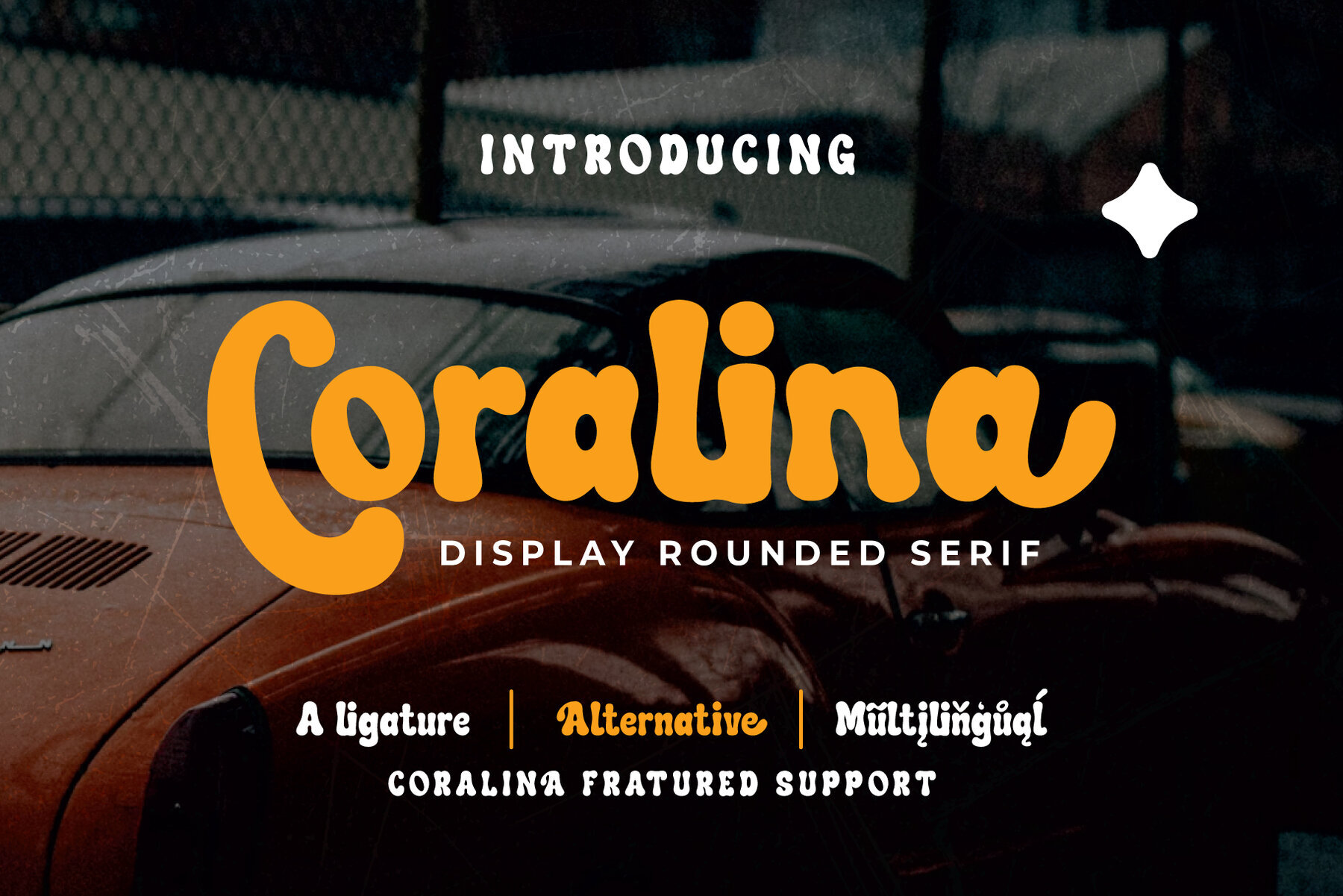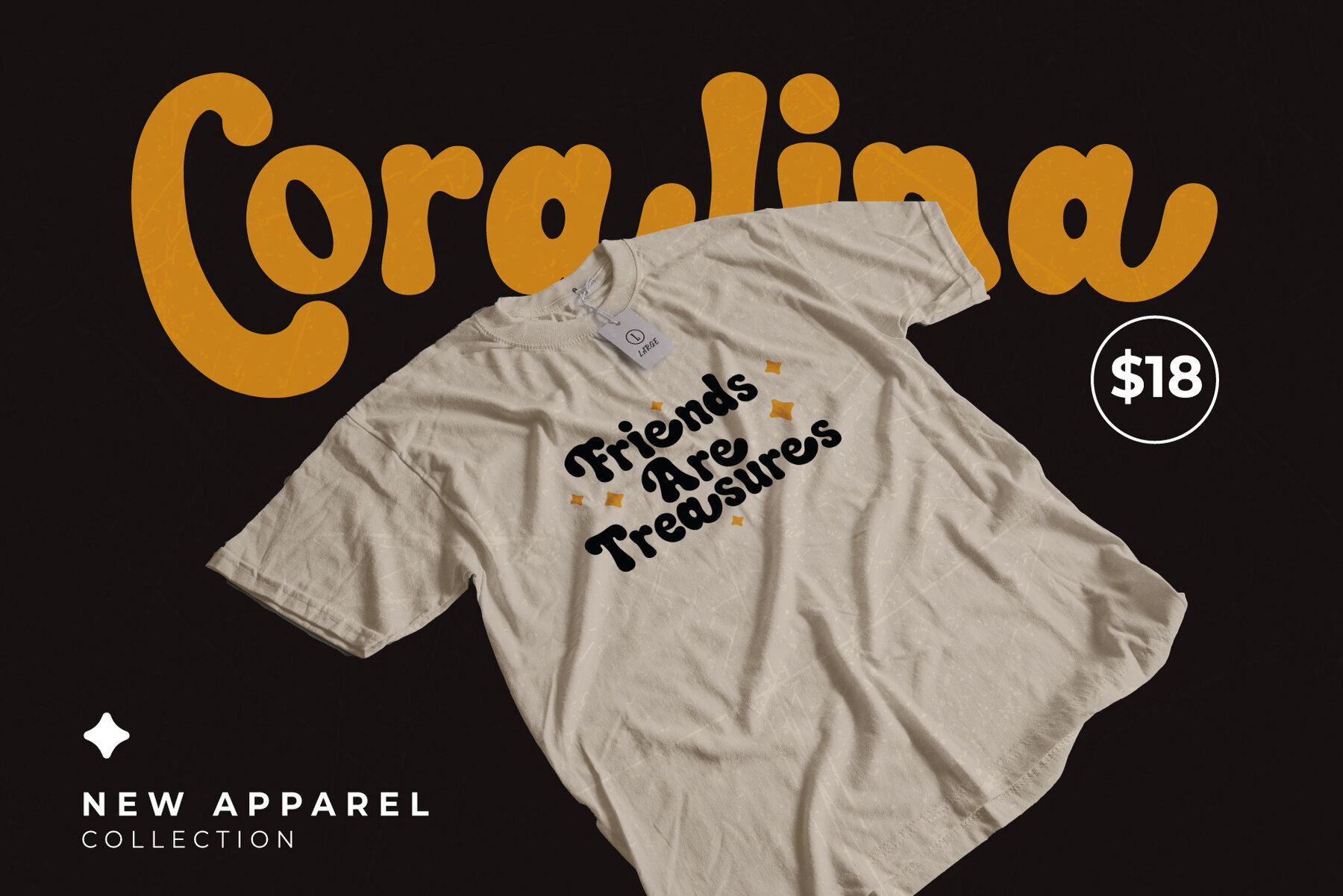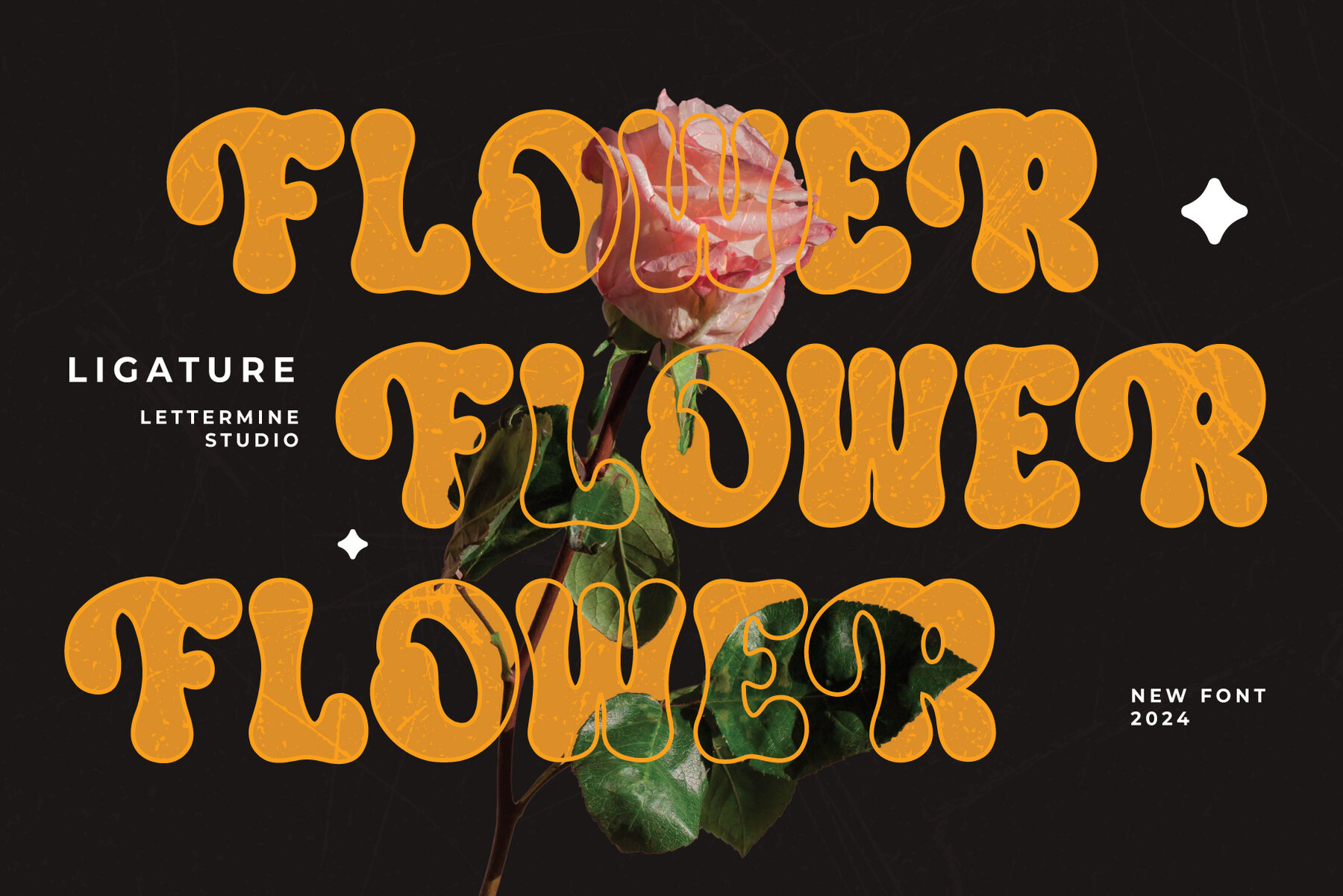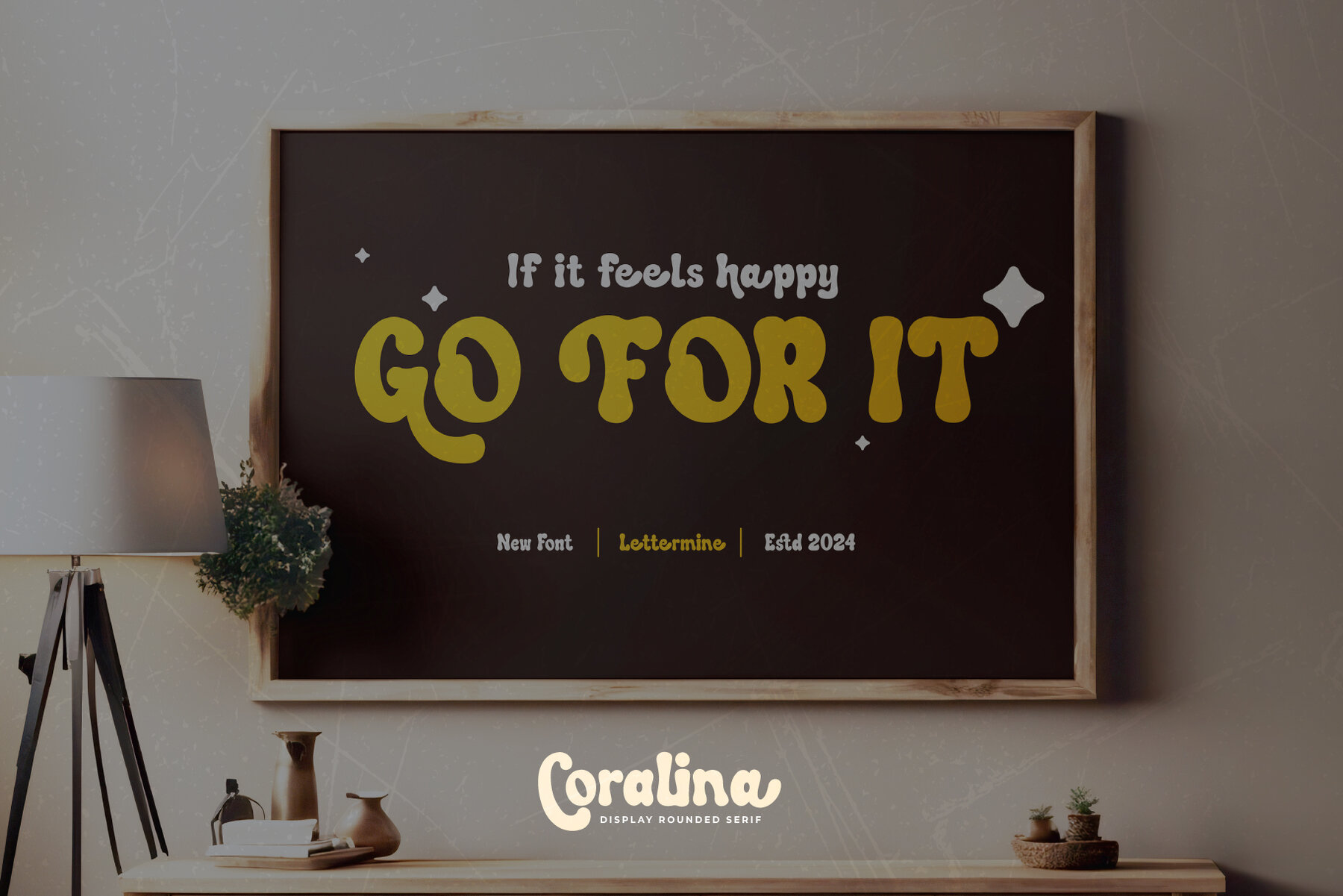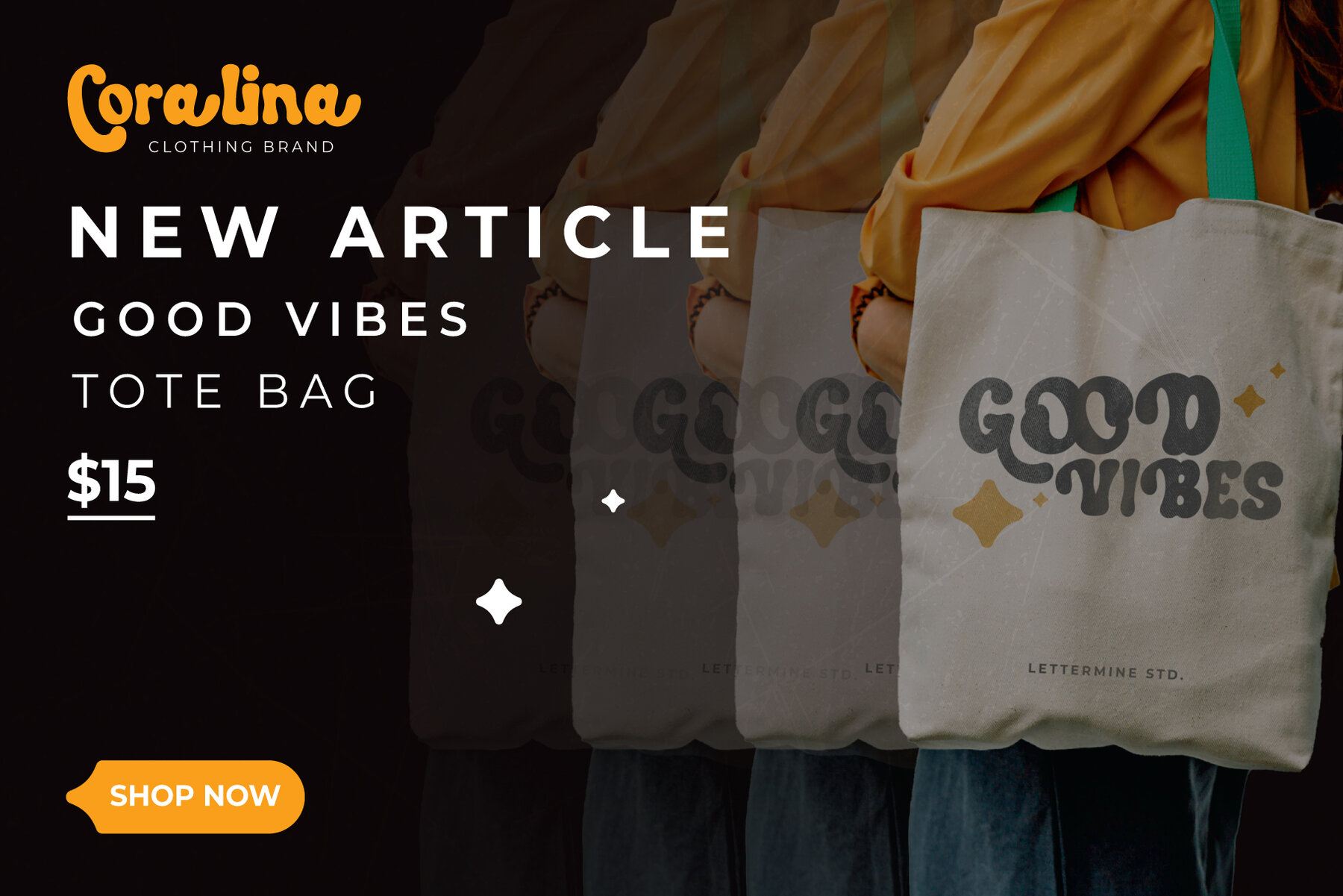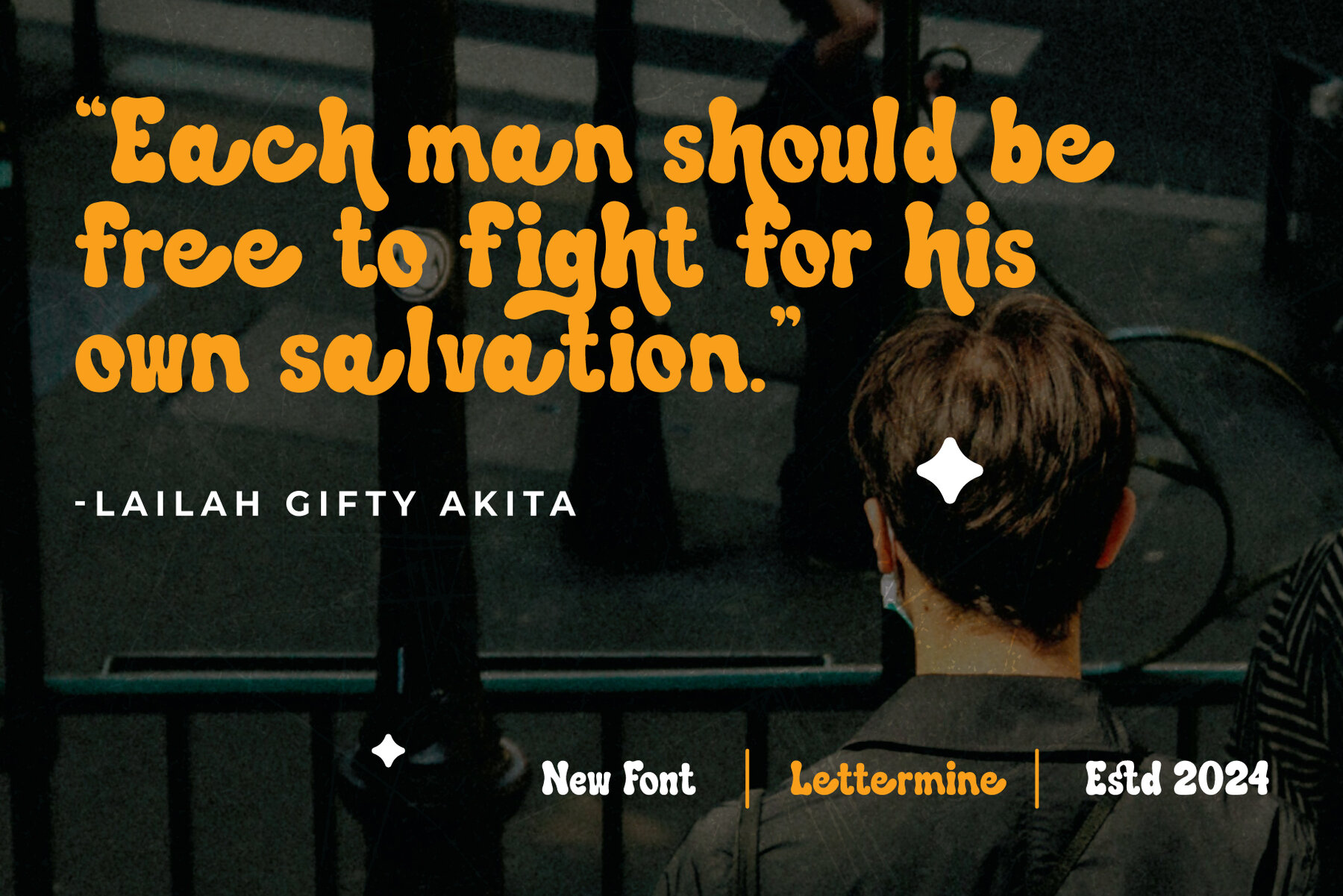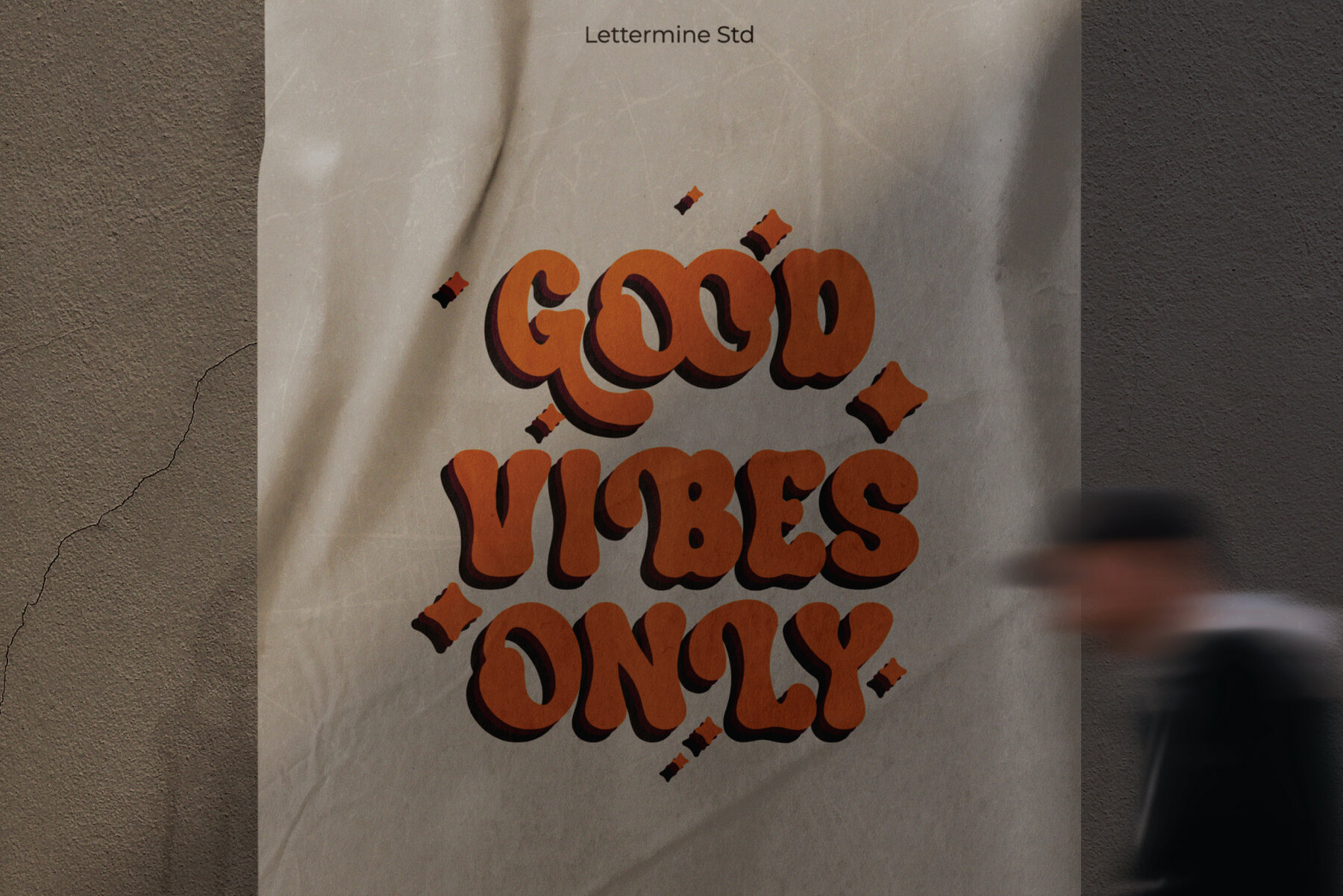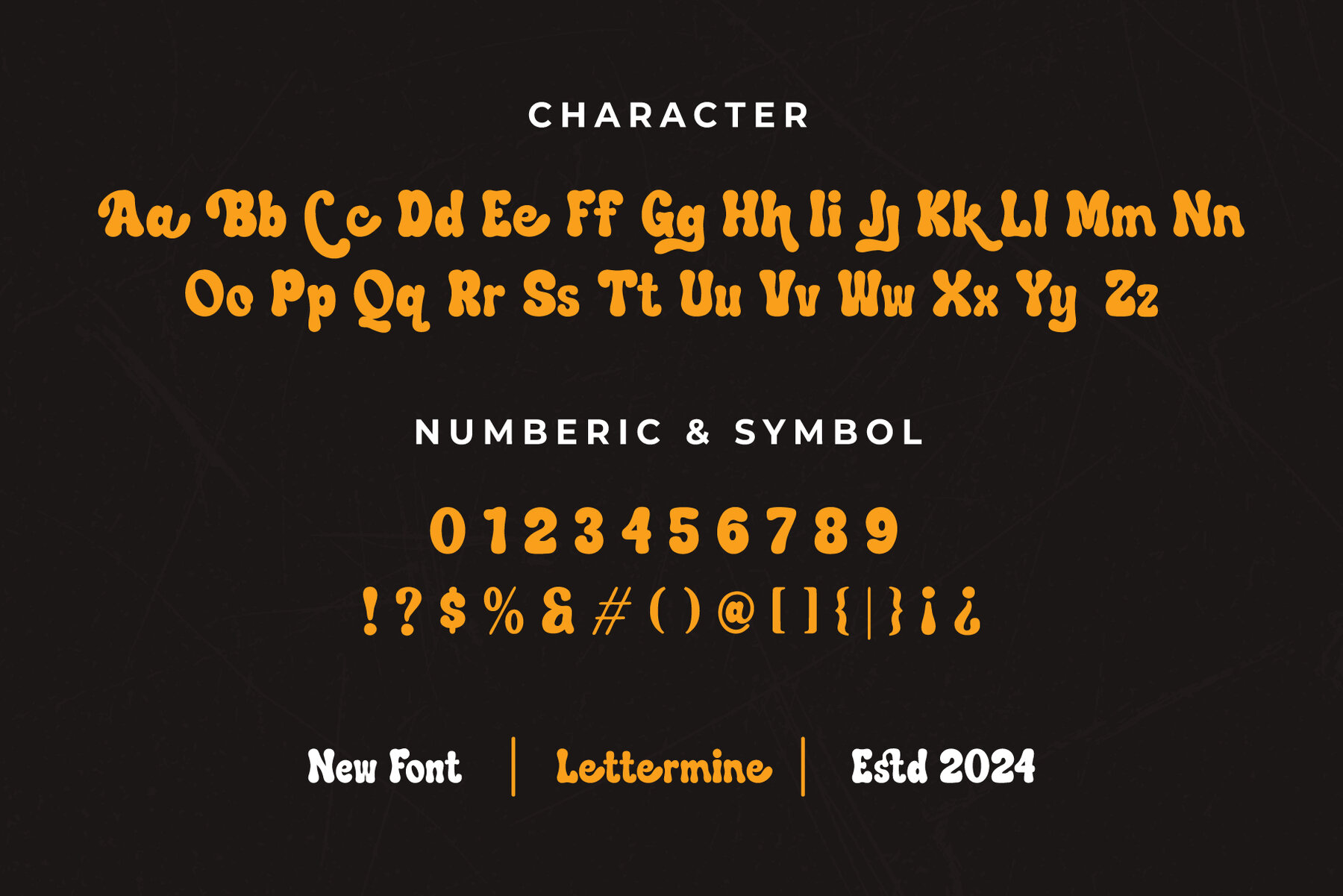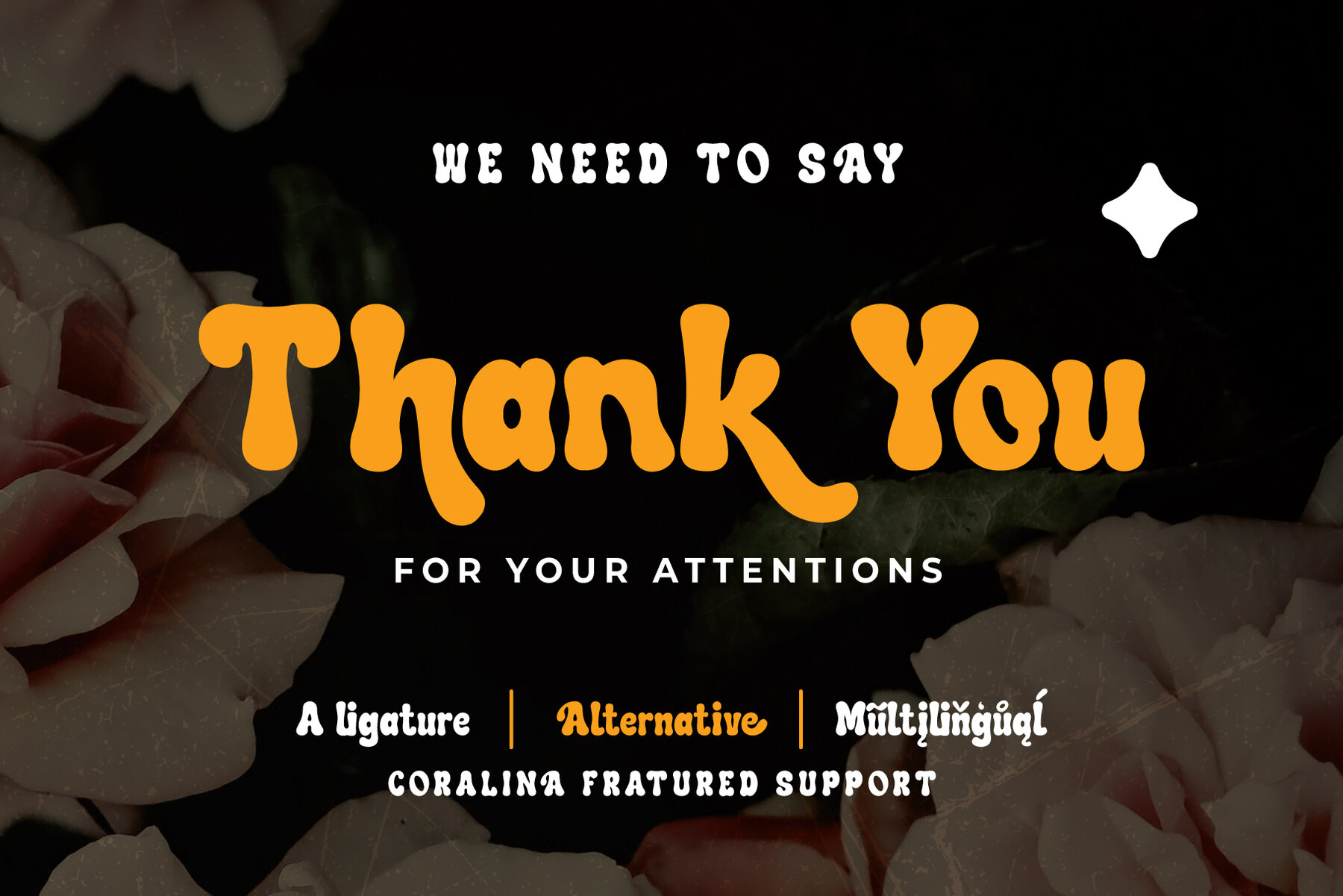
Coralina Font
Coralina Regular
Coralina by Lettermine Studio is your ultimate choice for a Retro Serif font that infuses projects with vintage charm. Its timeless appeal and versatile features make it a perfect addition to any design, effortlessly enhancing your work. Embrace the timeless elegance of Coralina and let your creativity shine. Bring your designs to life with this exquisite font!Coralina: Vintage Charm in a Retro Serif Font